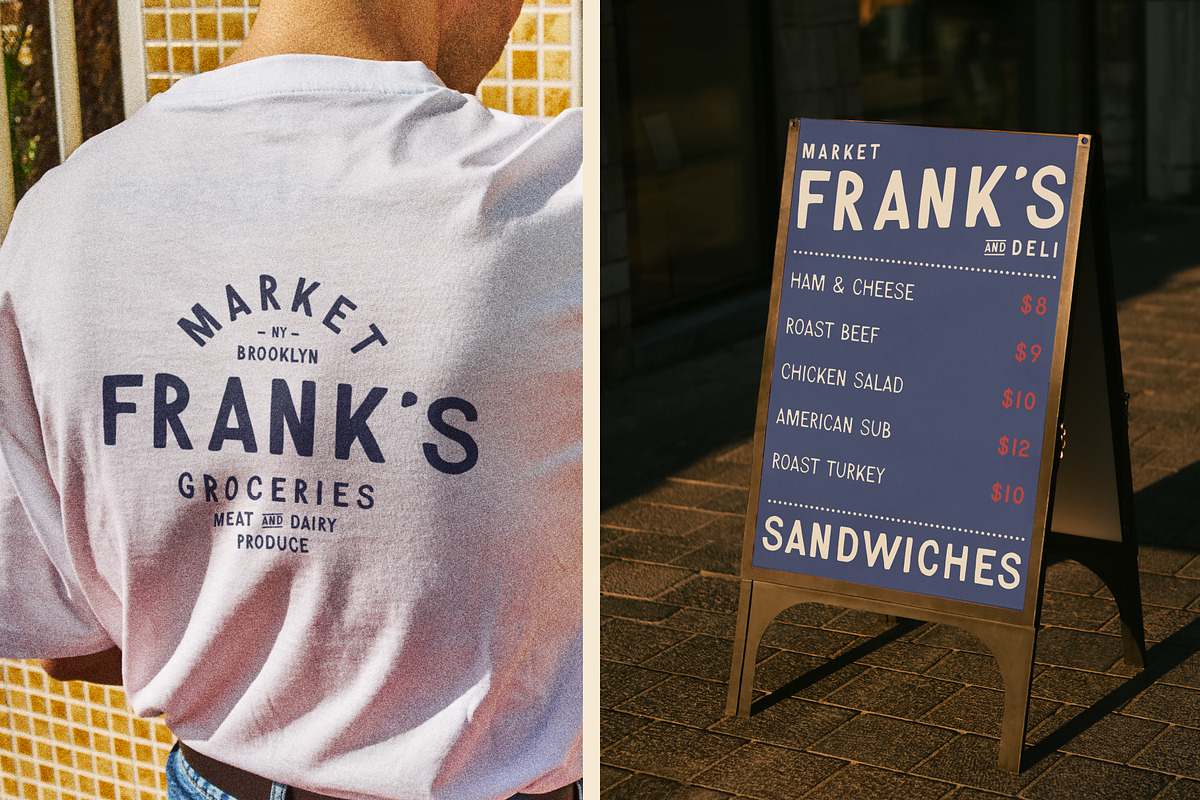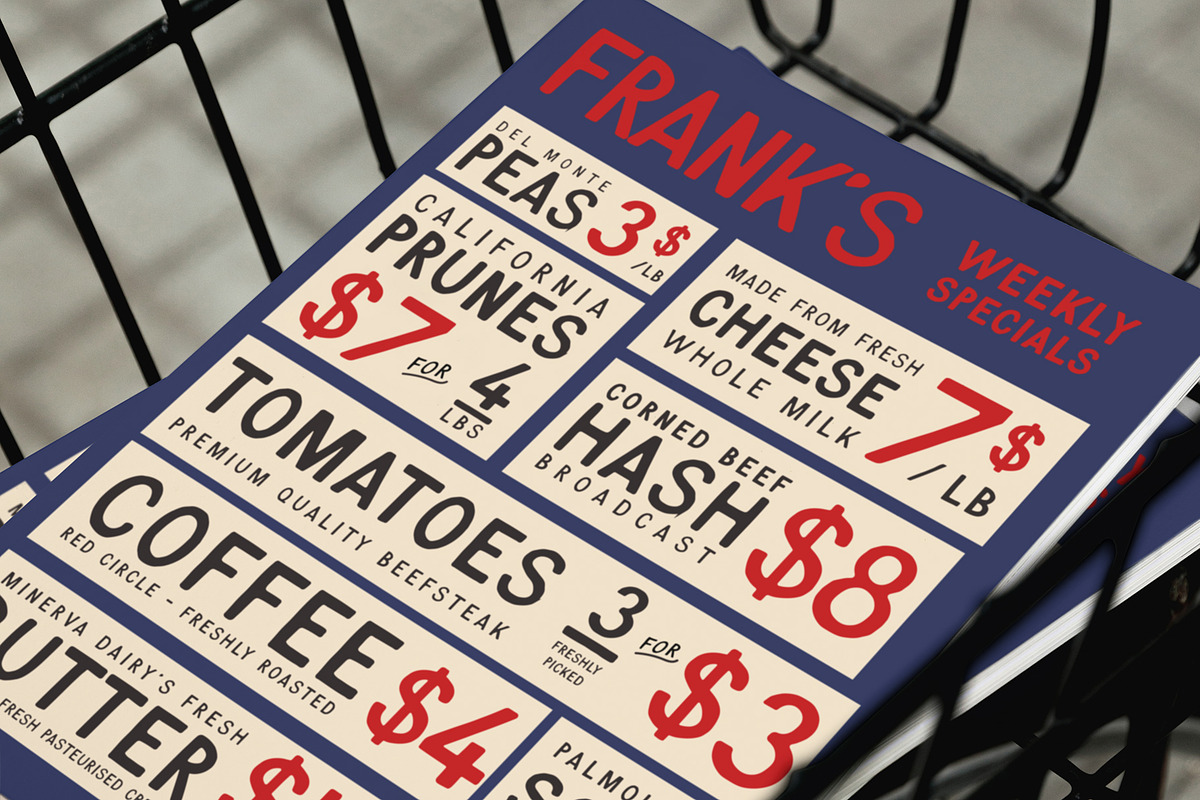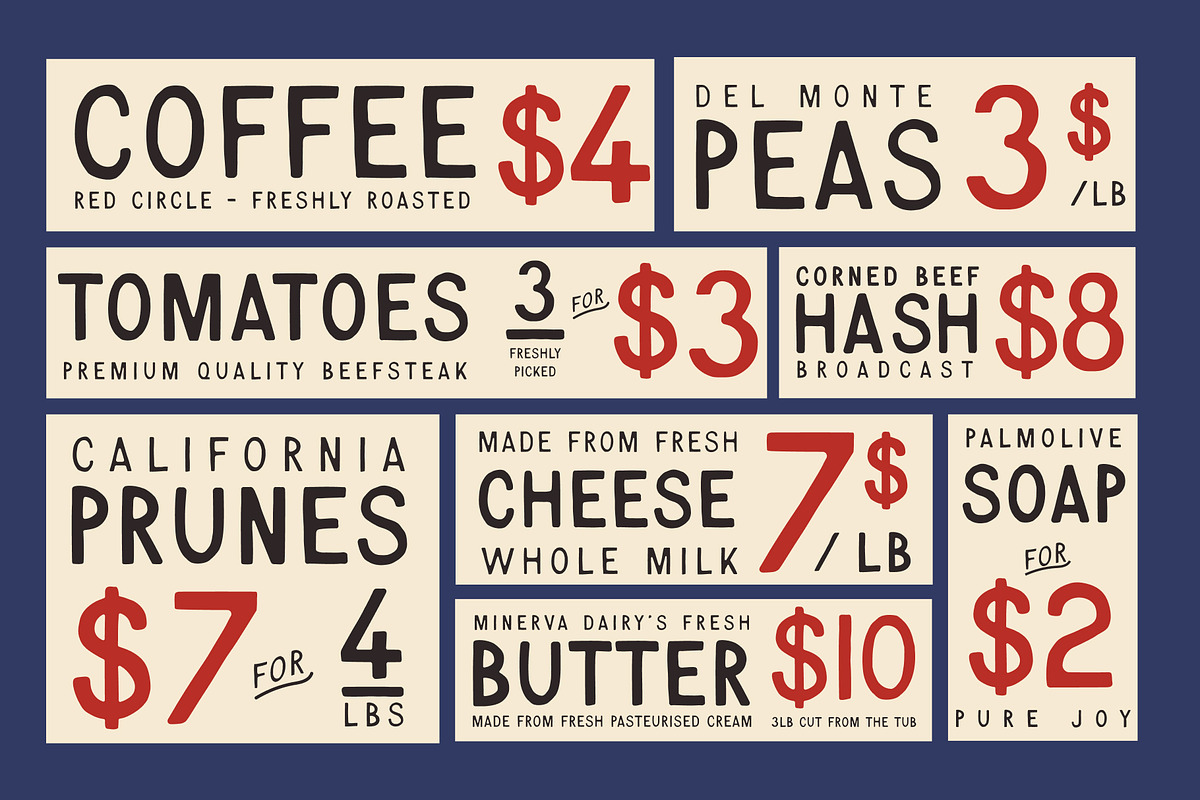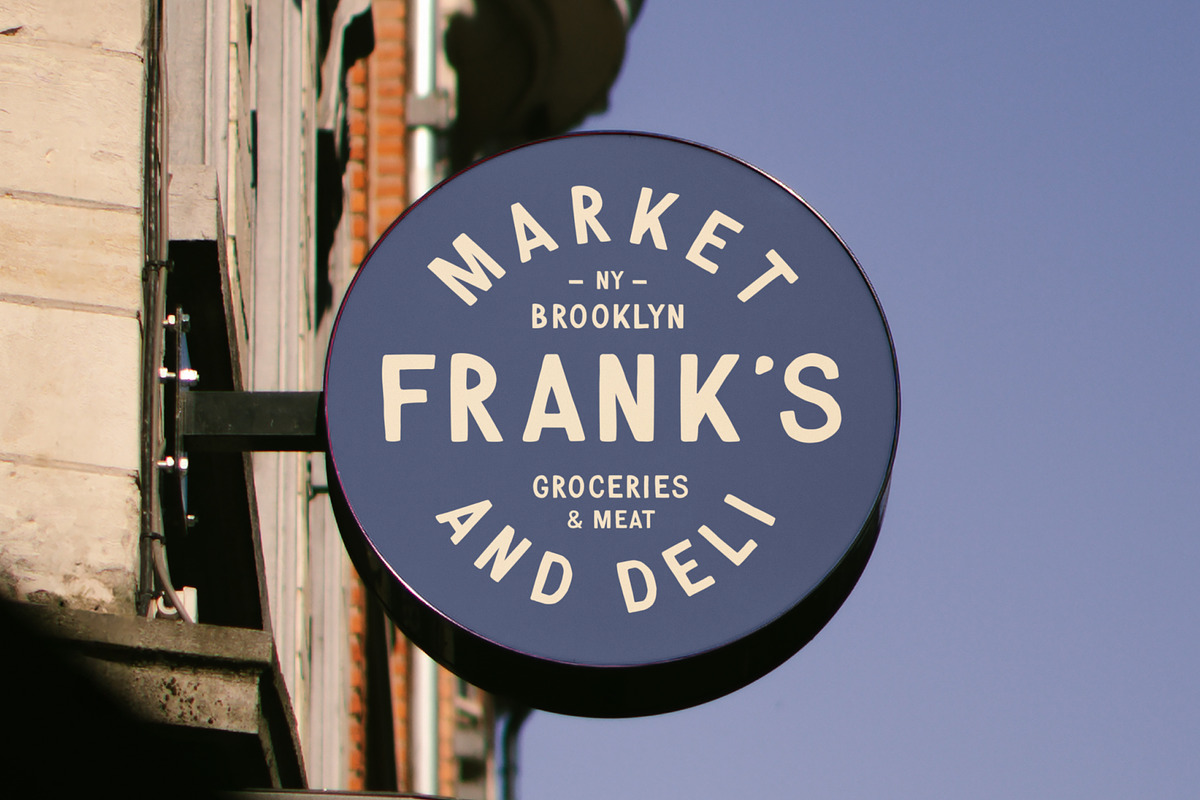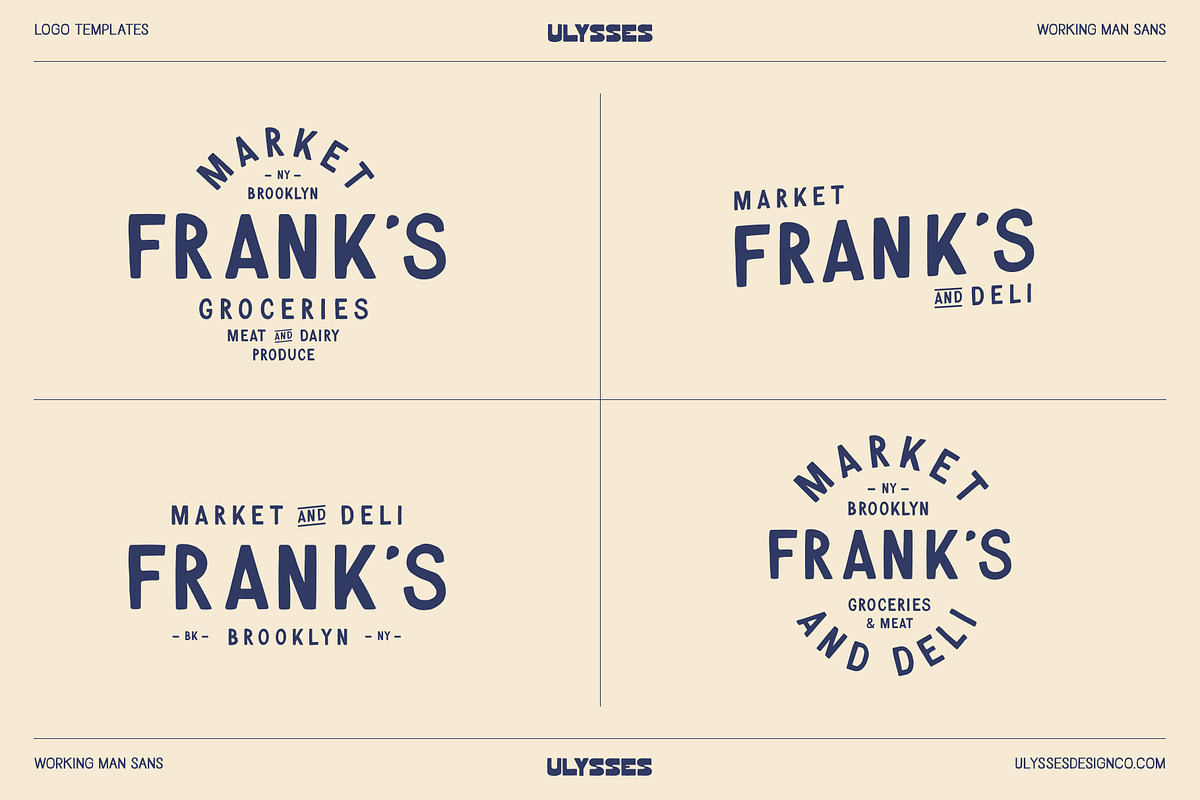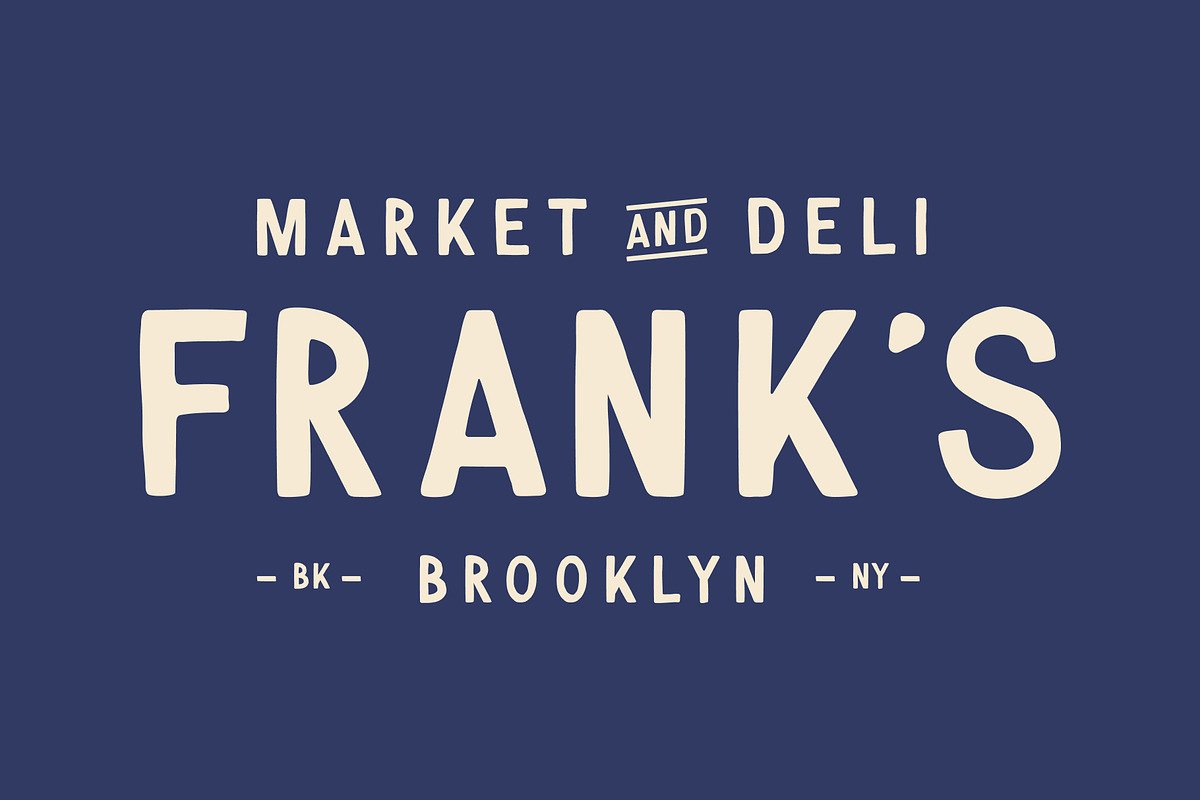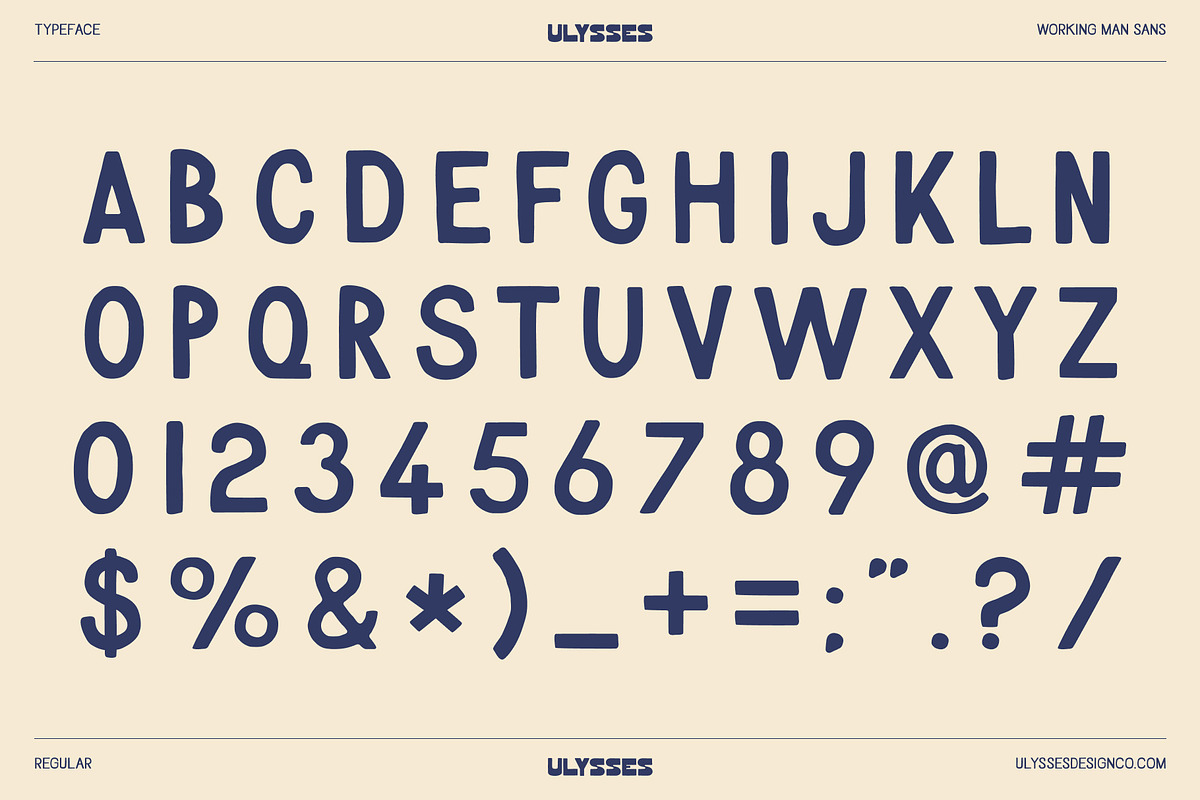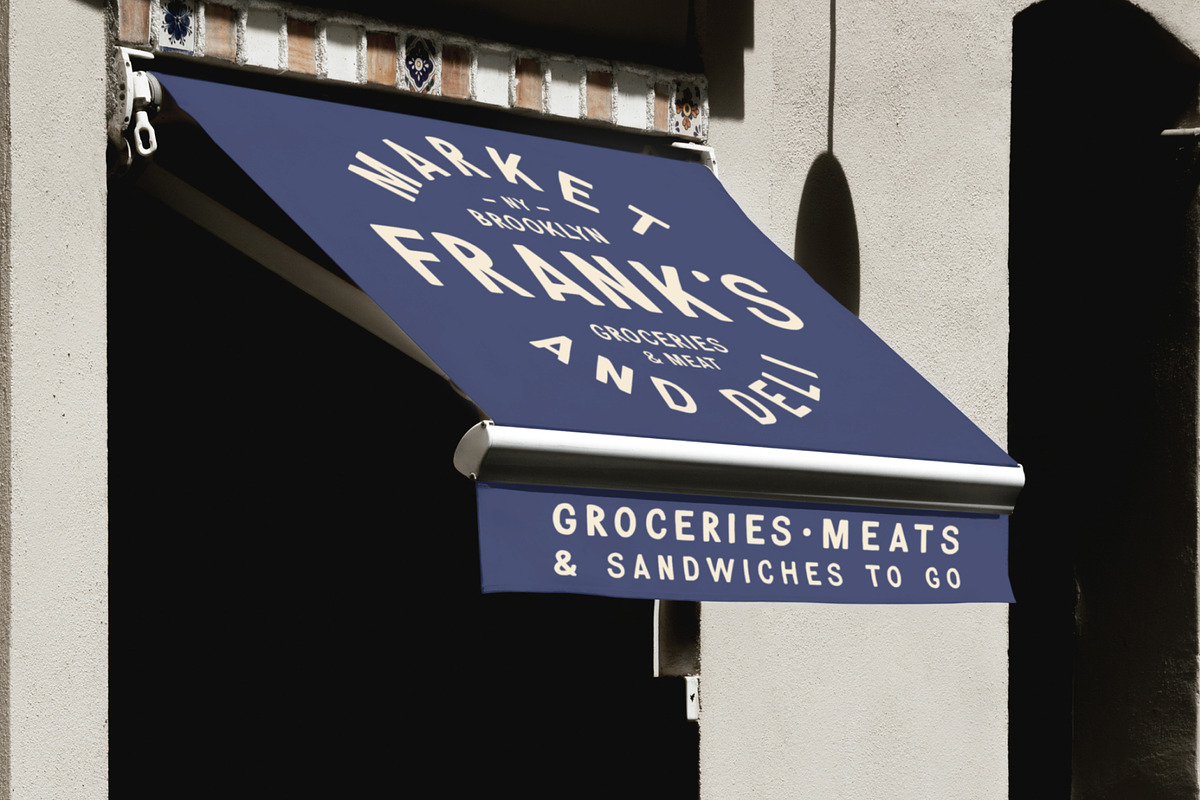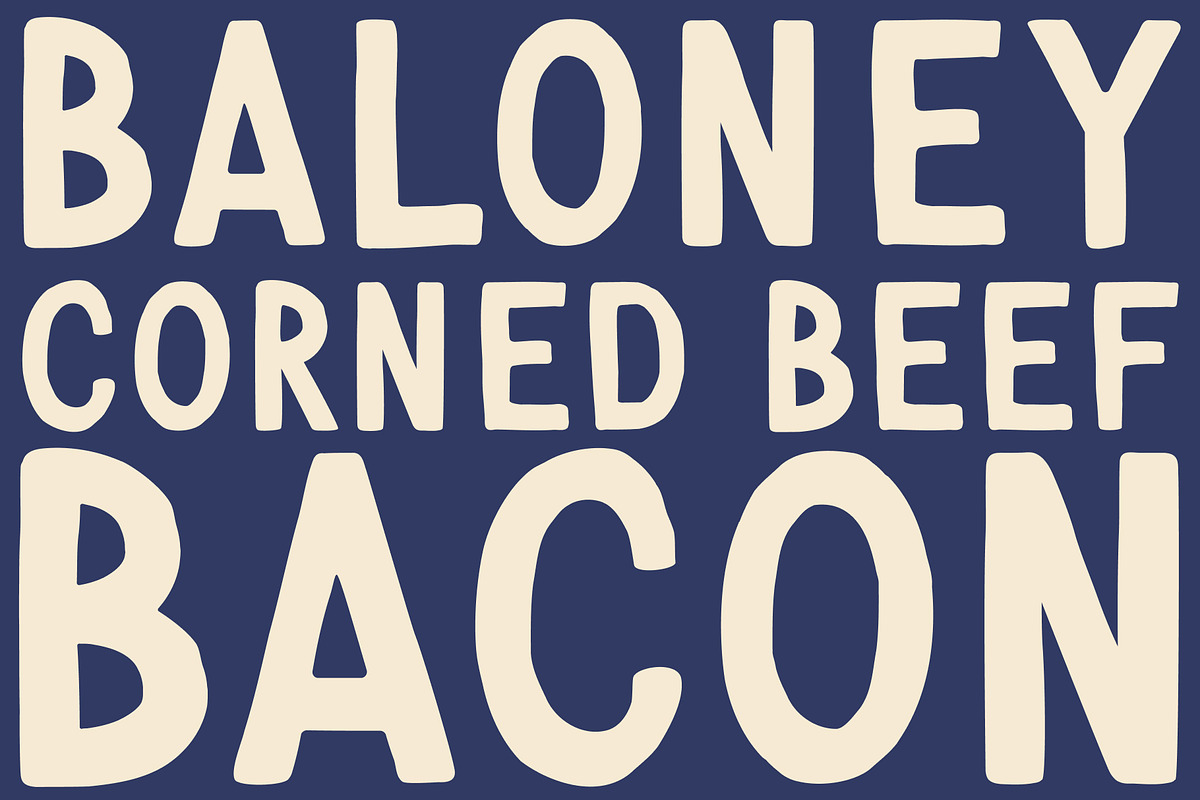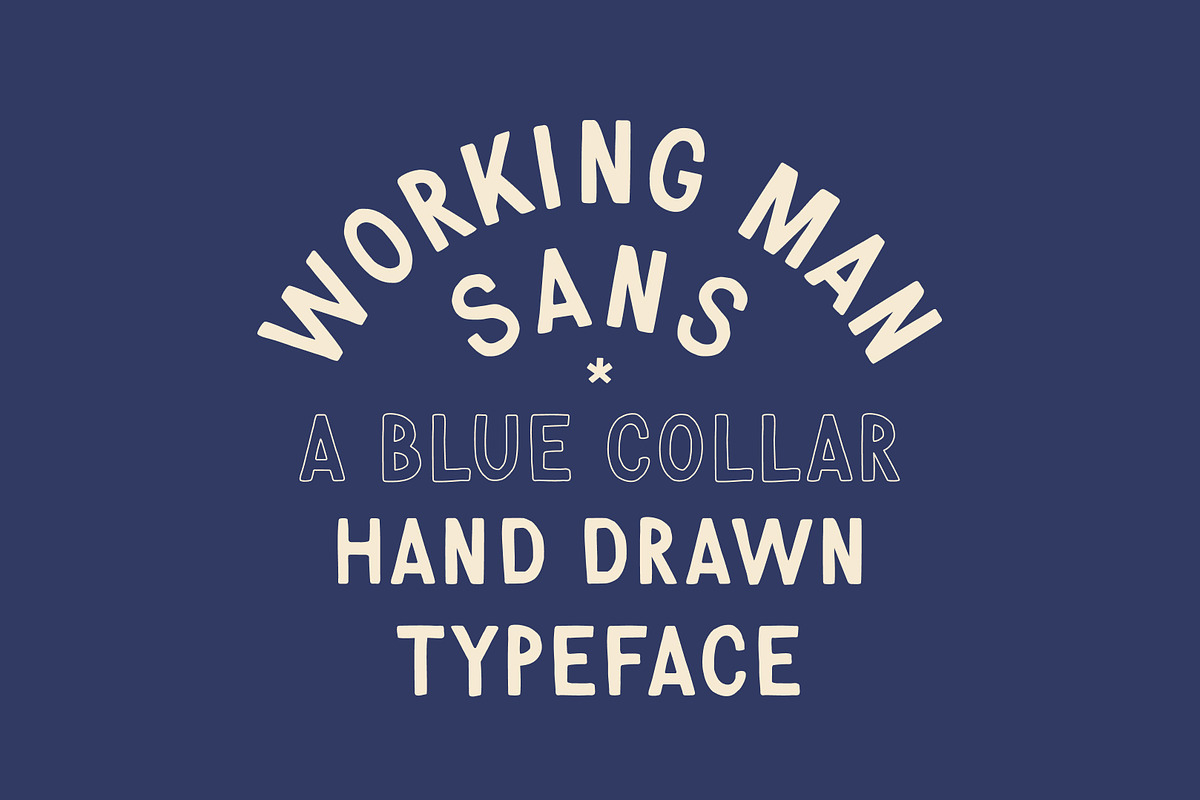
Working Man Sans Hand Drawn Font
A Type That Gets the Job Done.
Say hello to Working Man Sans, the latest hand-drawn typeface from the Ulysses Design Co. shop front.
Inspired by the hand-lettered signs of old-school sandwich shops and neighborhood delis, this font is built to deliver, no frills, just solid design. With bold strokes and honest character, Working Man Sans brings a practical charm to packaging, signage, branding, and more. It’s the kind of type that rolls up its sleeves and gets the job done.
Crafted with care at Ulysses Studio Co., this font is all about clarity, character, and that timeless, working-class grit.
Straightforward. Strong. Ready when you are.